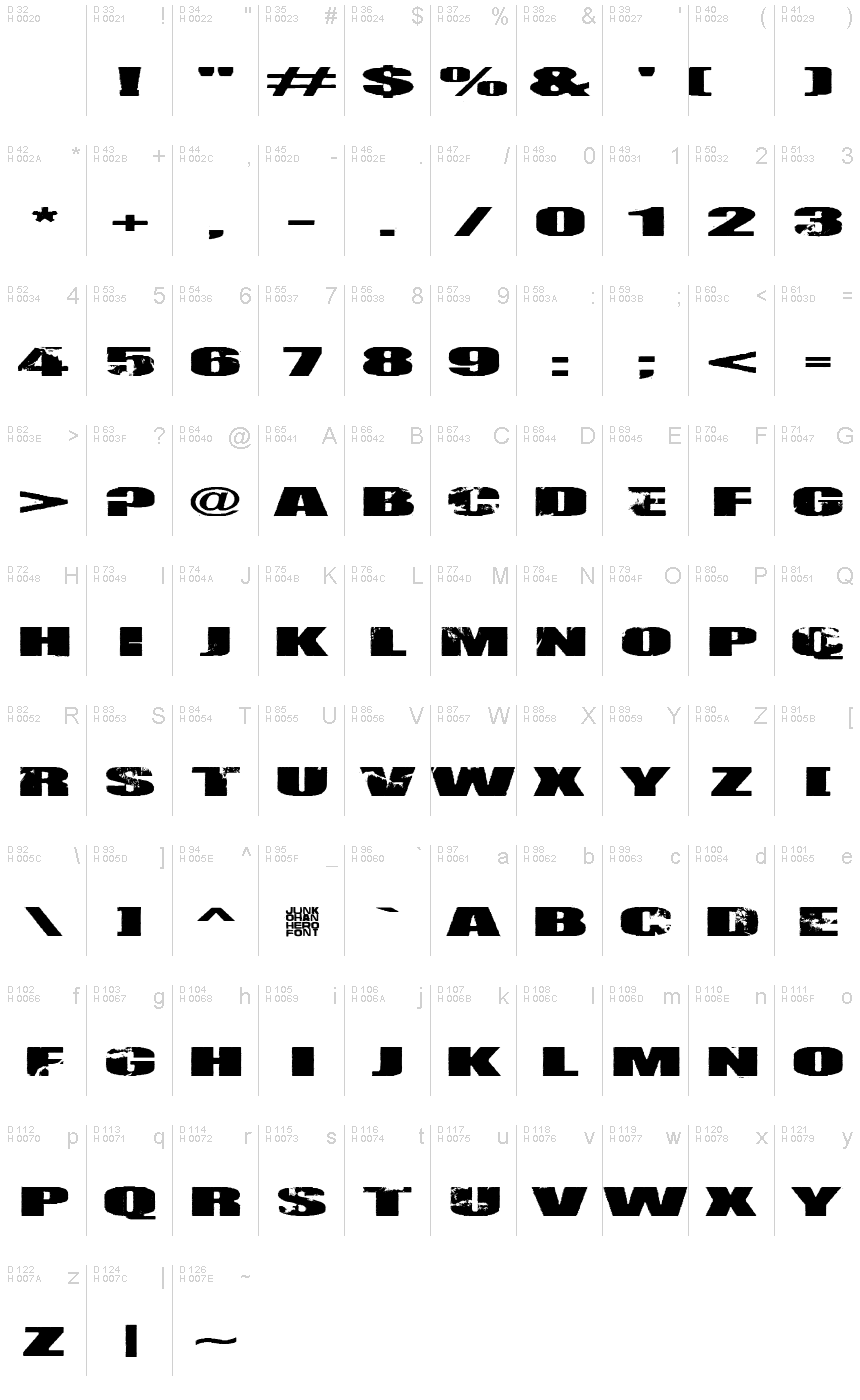
Nirhauma
Nirhauma is a bold, expanded display font with a striking, eroded aesthetic. Designed by junkohanhero, this typeface exudes a rugged, weathered charm that lends itself seamlessly to a range of design applications. Its expanded letterforms and bold weight create a dominant, attention-grabbing presence, while the eroded texture adds depth and character. Nirhauma's distinct visual style makes it a versatile choice for branding, headlines, and attention-grabbing typography.
Its robust design and unique personality make it an impactful choice for packaging, signage, and editorial layouts where a bold, impactful statement is desired.